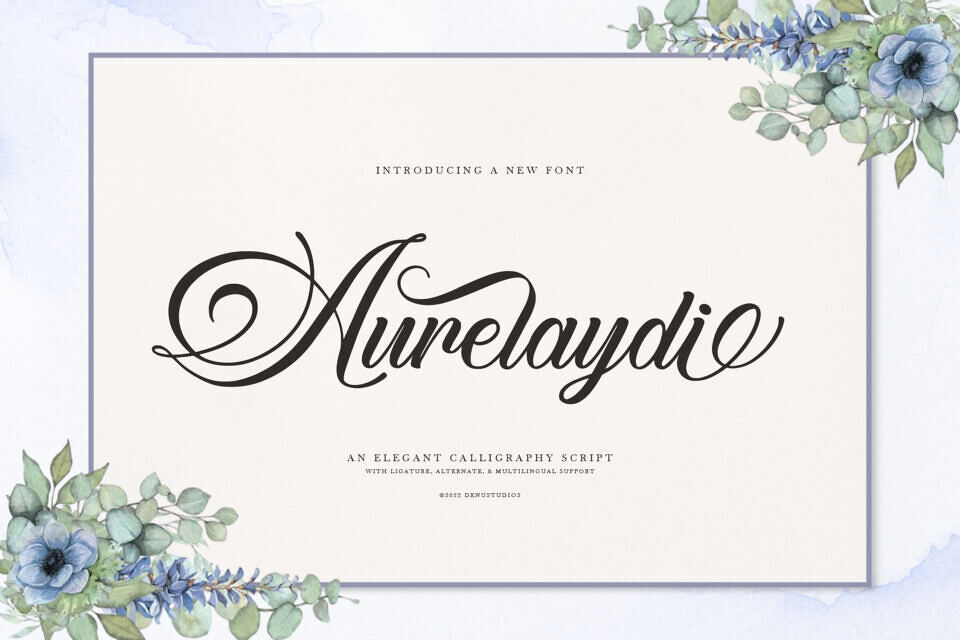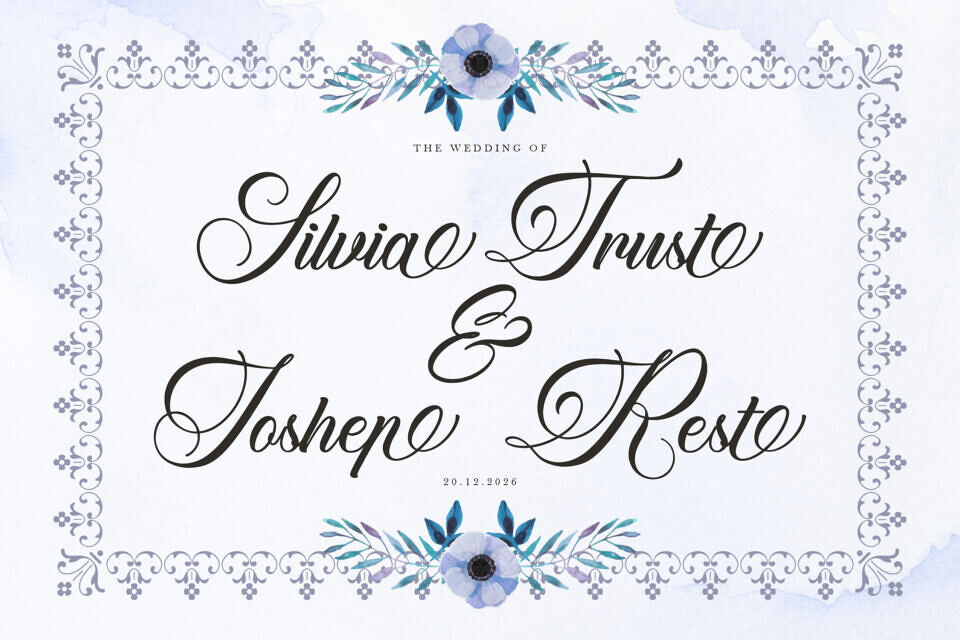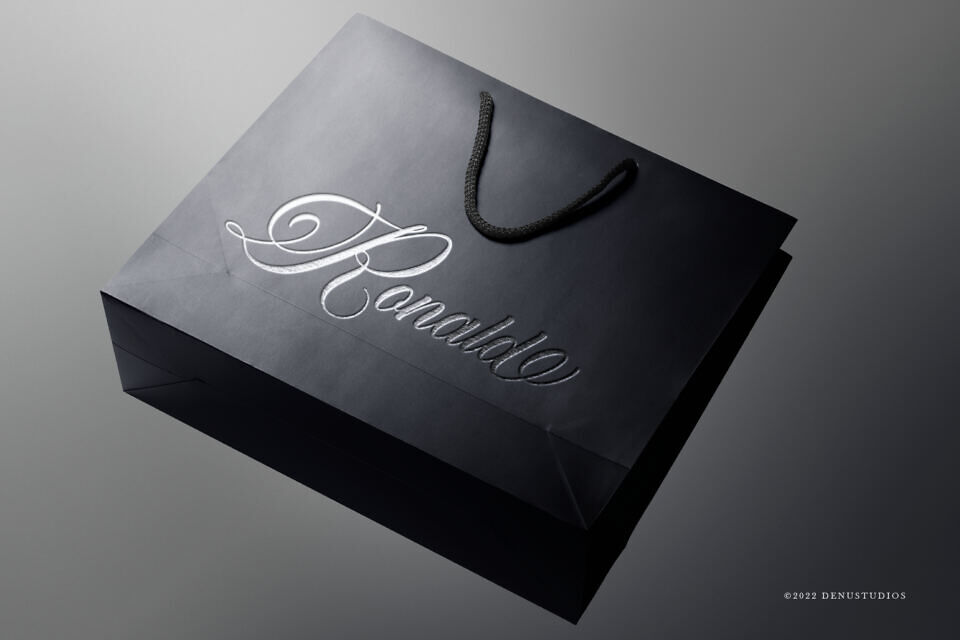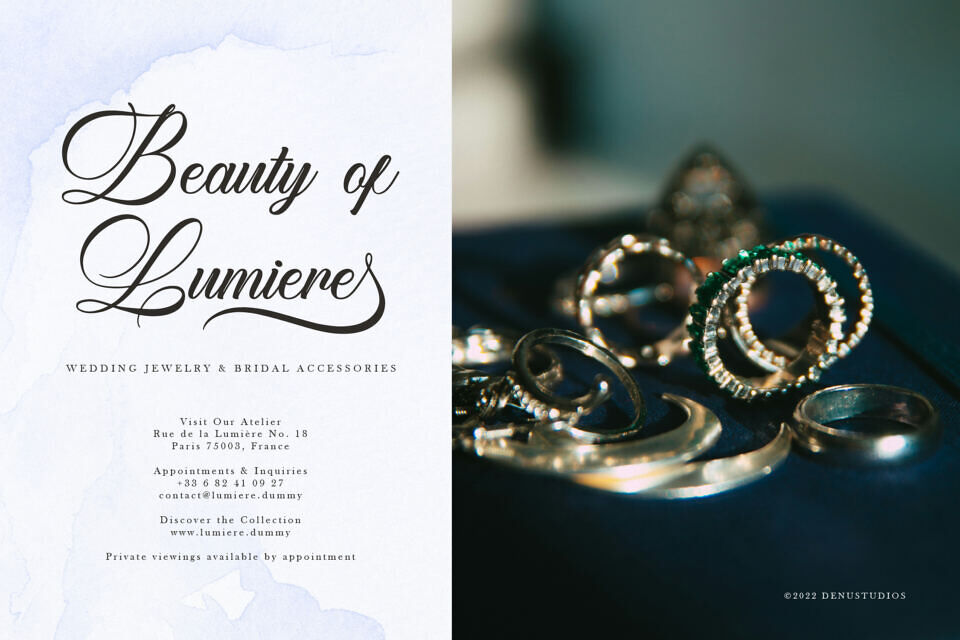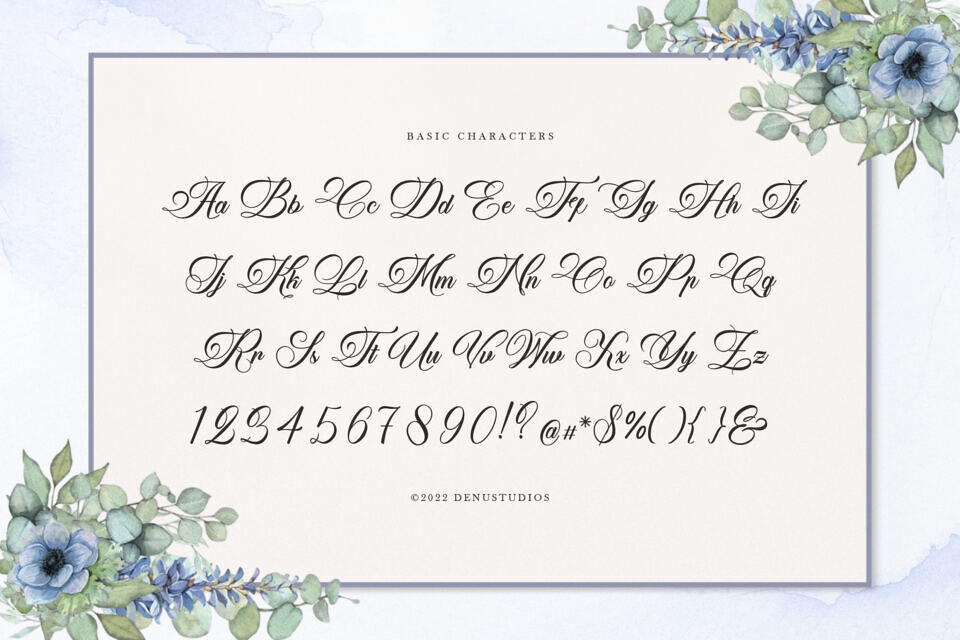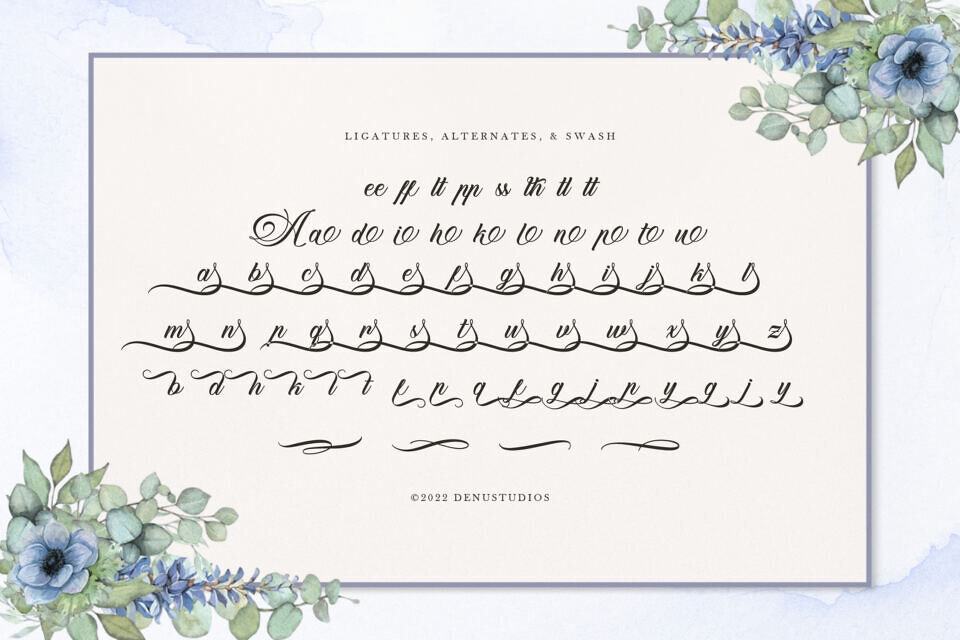
Aurelaydi Font
Aurelaydi is a sophisticated calligraphy script that embodies timeless grace and high-end elegance. This typeface is characterized by its fluid, rhythmic motion and dramatic, sweeping flourishes that bookend the words. The letterforms feature a traditional slanted axis with a beautiful contrast between thick, grounded downstrokes and delicate, wispy hairlines.
Designed with versatility in mind, the font includes a range of ligatures and alternate characters, as well as comprehensive multilingual support. It is an ideal choice for luxury wedding stationery, boutique brand identities, high-end event invitations, and upscale editorial designs that require a hand-lettered, romantic personality.